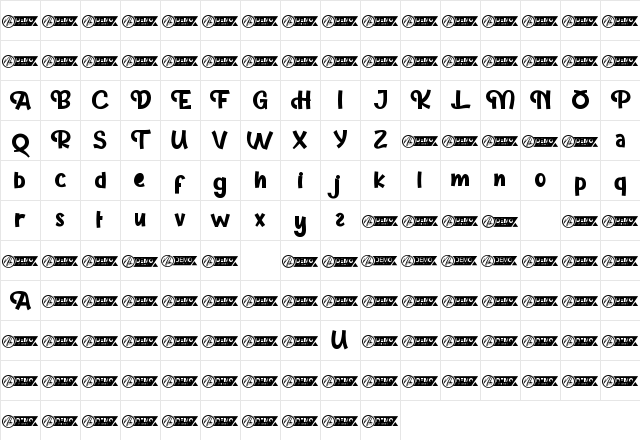
Teenage Lady Demo Regular Free Font
Teenage Lady Demo Regular
Foundry: NihStudio
Designer: Shalsha & Sarah SP
Design Context for Teenage Lady Demo
Teenage Lady Demo is a composed and adaptable typeface that performs quietly and consistently across a wide range of design contexts.